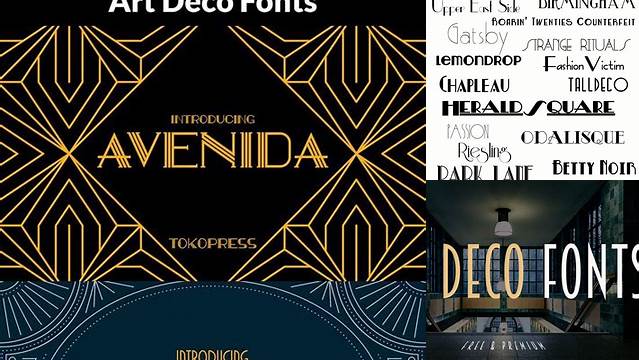
Art Deco Fonts In Word: A Stylish Guide
Hey guys! Ever wanted to jazz up your Microsoft Word documents with a touch of vintage glamour? Look no further! We're diving into the world of Art Deco fonts and how to use them in Word. Let's get started!
Art Deco Font Basics
Before we jump into using Art Deco fonts in Microsoft Word, let's quickly cover what makes a font Art Deco. These fonts, inspired by the Art Deco movement of the 1920s and 30s, typically feature geometric shapes, clean lines, and a sense of luxury and modernity. Think bold and elegant! The style is all about making a statement, reflecting the optimism and innovation of the era. You'll often see fonts with strong vertical lines, symmetrical designs, and a touch of ornamentation without being overly fussy. Understanding these basic characteristics will help you pick the perfect font to capture that vintage vibe. They really stand out and give your documents a unique flair.
These fonts are not just about aesthetics; they also carry a sense of history and sophistication. When selecting an Art Deco font, consider the overall tone you want to convey. Are you aiming for a sleek, corporate look, or something more whimsical and decorative? The right choice can transform your project from ordinary to extraordinary. Plus, experimenting with different font combinations can add depth and personality to your designs. So, take your time, explore various options, and have fun discovering the perfect Art Deco font for your needs. Remember, the goal is to create a visually appealing and memorable piece that reflects the timeless elegance of the Art Deco era. Keep in mind to use them appropriately, though; overuse can make your work look cluttered.
Finding Art Deco Fonts for Word
Using Art Deco Fonts in Microsoft Word
Now for the fun part! Open Microsoft Word and start typing. Select your text, then choose your newly installed Art Deco font from the font dropdown menu. Experiment with different font sizes and styles (bold, italic) to see what looks best. Remember, Art Deco fonts are all about making a statement, so don't be afraid to go bold! When incorporating Art Deco fonts into your Microsoft Word documents, there are several techniques you can use to enhance their impact and create a visually appealing design. First, consider using Art Deco fonts for headings and subheadings to draw attention to key sections of your document.
Pairing an Art Deco font with a simpler, more modern typeface for the body text can create a striking contrast that improves readability while maintaining a stylish aesthetic. Second, experiment with different font sizes and weights to emphasize important information. Using a larger font size for headings and a bolder weight for key terms can help guide the reader's eye and highlight essential points. Third, pay attention to spacing and alignment to ensure a clean and organized layout. Adjusting the line spacing and character spacing can improve readability and create a more polished look. Fourth, consider using decorative elements such as lines, borders, and geometric shapes to complement the Art Deco font and enhance the overall design. These elements can add visual interest and reinforce the theme of your document. Finally, be mindful of color choices. Using colors that are characteristic of the Art Deco era, such as gold, black, and jewel tones, can further enhance the authenticity and visual appeal of your design. By incorporating these techniques, you can effectively use Art Deco fonts in Microsoft Word to create documents that are both stylish and informative.
So there you have it! Adding Art Deco fonts to your Microsoft Word documents is a fun and easy way to add a touch of vintage glamour to your work. Experiment with different fonts, colors, and designs to create something truly unique. Have fun and get creative, guys! I hope this guide has inspired you to explore the world of Art Deco design in Microsoft Word. Remember, the key is to have fun and experiment with different fonts, colors, and designs to create something that reflects your personal style and creativity. Don't be afraid to try new things and push the boundaries of what's possible. With a little practice and imagination, you can create stunning Art Deco designs that are sure to impress. Good luck, and happy designing!